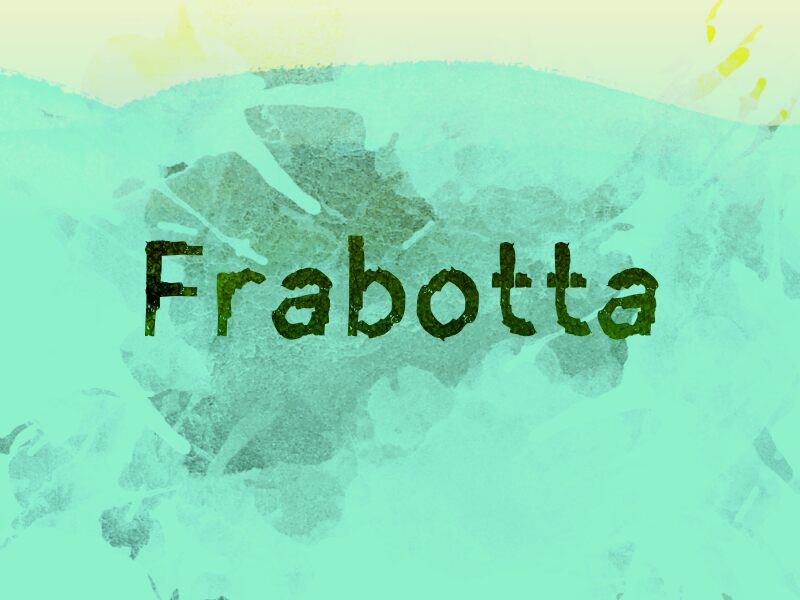
Frabotta
Frabotta, designed by wep, is a display font that exudes a raw, unrefined charm with its eroded style. This typeface commands attention through its textured edges and distressed appearance, embodying a sense of rugged individuality. It's the perfect choice for projects that aim to stand out with an edgy, urban vibe.
The aesthetic appeal of Frabotta lies in its ability to evoke the character of street art or vintage signage, making it highly suitable for music album covers, apparel designs, and branding that celebrates authenticity. Its unique look offers designers the opportunity to infuse personality into their creations while maintaining readability.
Whether you're looking to add an industrial touch or aiming for a grunge-inspired feel, Frabotta delivers on all fronts – ensuring your project makes a bold statement.